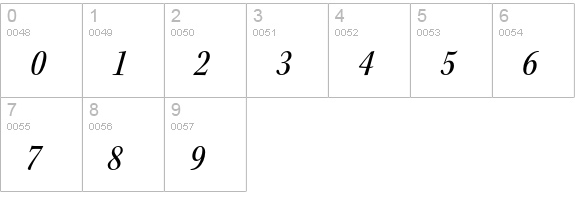
Kepler Std Medium Condensed Italic Subhead Font Details
Kepler Std Medium Condensed Italic Subhead is a balanced, medium-weight, condensed-width, italic variant in the Kepler typeface family \xE2\x80\x94 well suited to sub-headlines, navigation, and balanced editorial work.
Kepler Std Medium Condensed Italic Subhead font is a captivating and versatile typeface that effortlessly combines elegance with readability. It is the perfect choice for creating eye-catching subheadings that command attention and add a touch of sophistication to any design project. With its stylish and slanted italics, Kepler Std Medium Condensed Italic Subhead font exudes a sense of modernity and finesse. The condensed nature of this font allows for efficient use of space, making it ideal for projects where every inch counts, such as magazine layouts, posters, or packaging designs. The medium weight of this font strikes a perfect balance between impact and legibility, making it suitable for various applications, including headlines, subheadings, and even body text. Its clear and crisp letterforms ensure optimal readability, even at smaller sizes. What adds to the appeal of Kepler Std Medium Condensed Italic Subhead font is that it is freely available to download at FontsMarket.com. This means that designers, creatives, and enthusiasts can easily access this remarkable font without any cost. Its availability for free makes it a valuable asset for both personal and commercial projects, providing endless possibilities for creative expression. So, whether you are working on a branding project, a website design, or a print advertisement, Kepler Std Medium Condensed Italic Subhead font is a must-have in your font library. Its versatility, elegance, and availability make it an essential tool for any designer looking to make a lasting impression. Don't miss the opportunity to download this exceptional font for free at FontsMarket.com and elevate your designs to new heights.